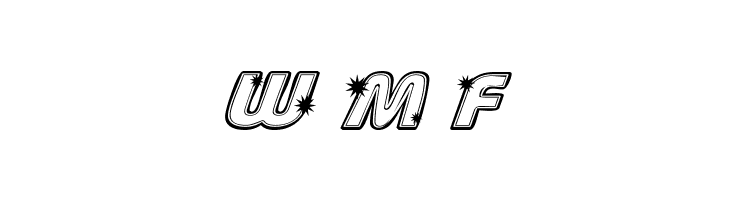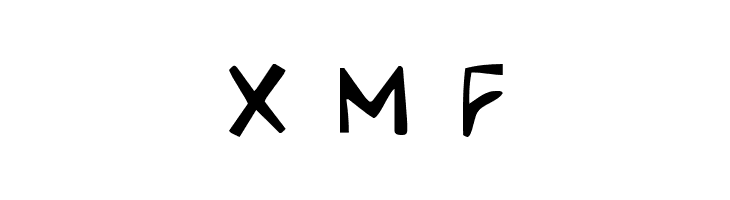
A playful, handwritten font with bold, rounded characters and a whimsical style.
A bold, retro-inspired font with starburst effects and outlined characters.
A sleek, futuristic font with angular, slanted characters.
A bold, modern font with tall, narrow characters and consistent stroke width.
A decorative font with whimsical, angelic motifs and bold, stylized characters.
A bold, retro-inspired font with playful, angular characters.
A bold, futuristic outline font with geometric and angular characters.
A bold, decorative font with playful and whimsical characters.
A sleek, modern font with elongated, narrow characters and a minimalist style.
A sleek, modern italic font with bold, rounded characters.
A bold, playful font with rounded, whimsical characters.
A bold, playful handwritten font with smooth, rounded characters.
A hand-drawn, artistic font with elongated, narrow characters and a uniform stroke width.
A bold, modern font with thick, block-like characters.
A bold, uncial-style font with medieval influences and dynamic character shapes.
A bold, retro font with rounded, bulbous characters and a playful style.